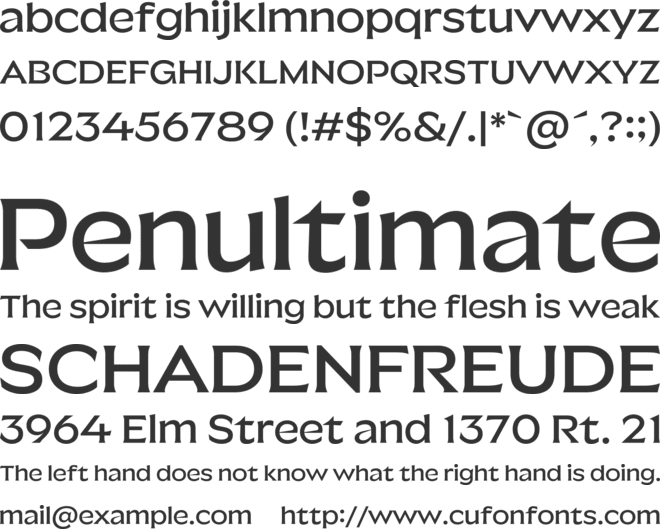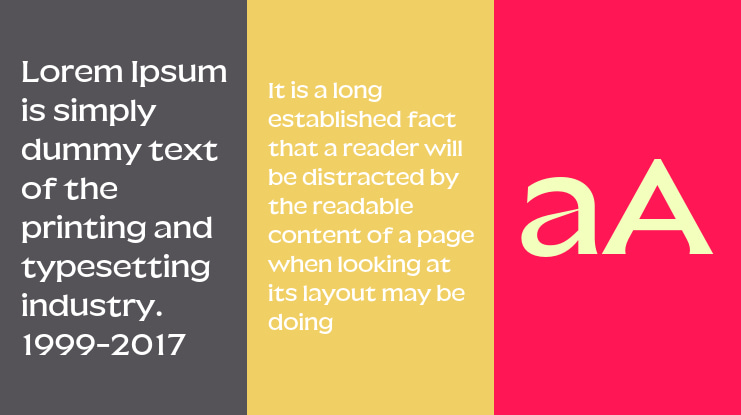
JT Barnez is a refined hybrid typeface blending subtle serif elegance
with the clarity of a modern sans-serif. Its expanded proportions,
sharp detailing, and clean structure deliver a confident and
contemporary look. With 7 versatile weights from Thin to Bold, JT
Barnez adapts beautifully to both delicate editorial layouts and
strong headline designs, making it ideal for branding, visual identity,
and modern typography projects.